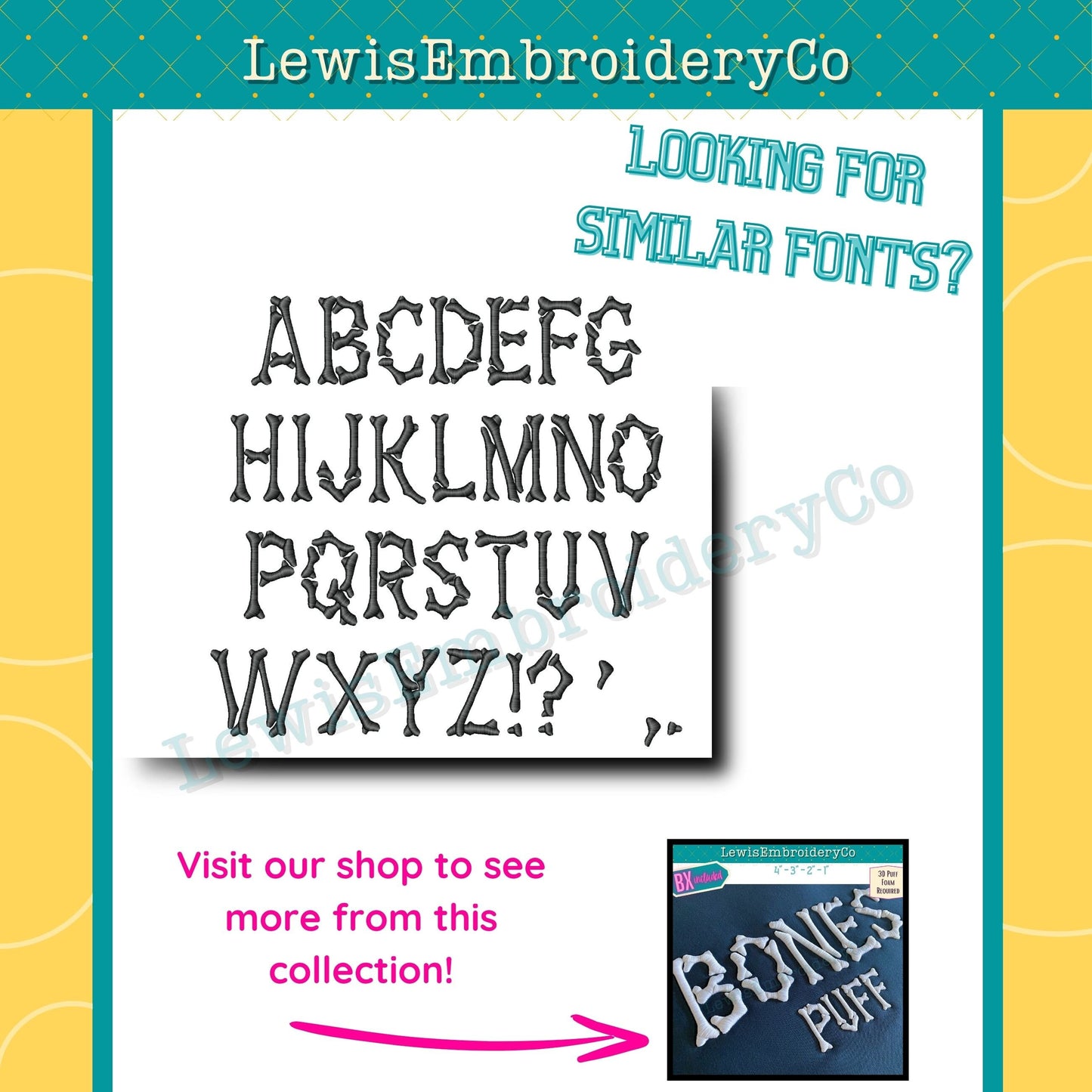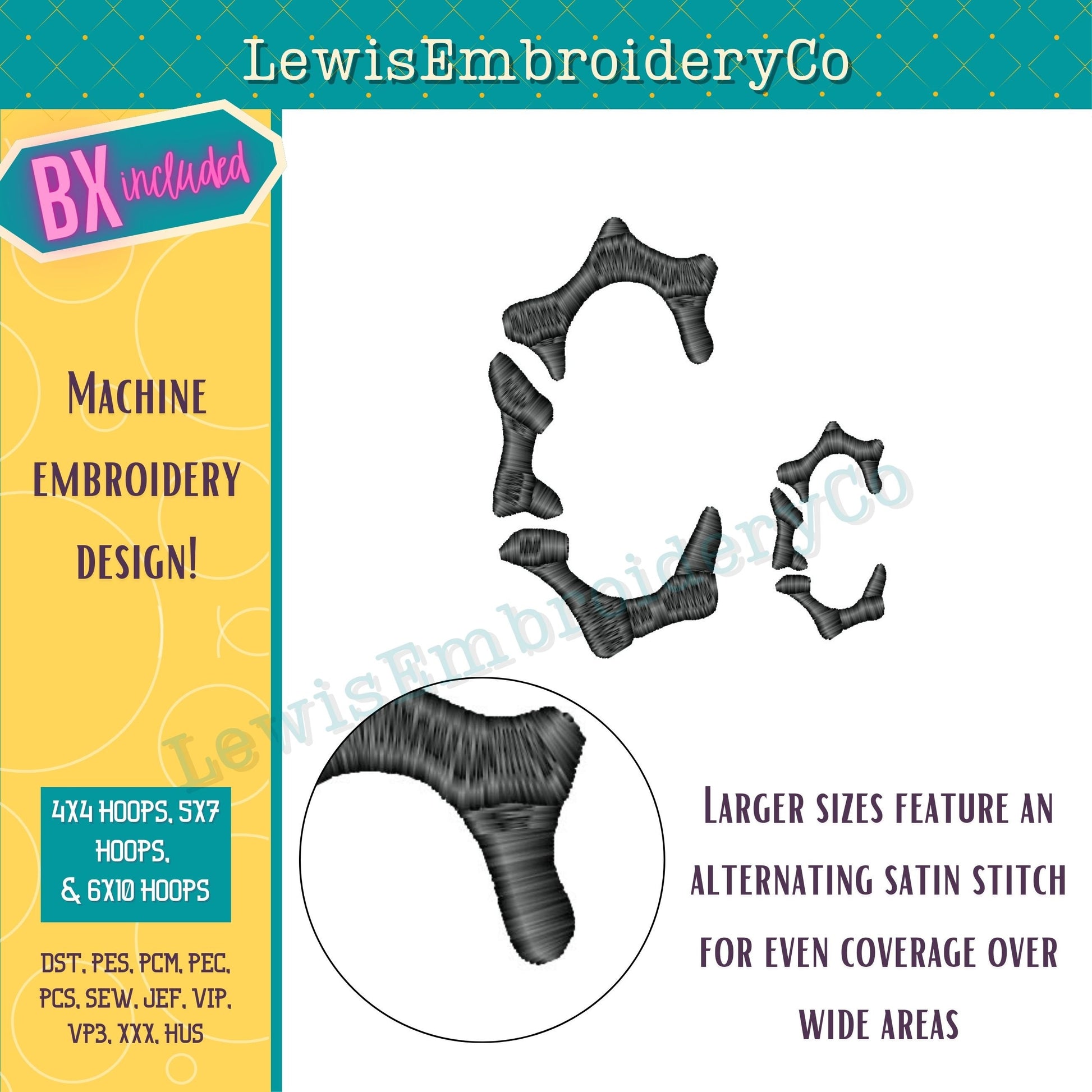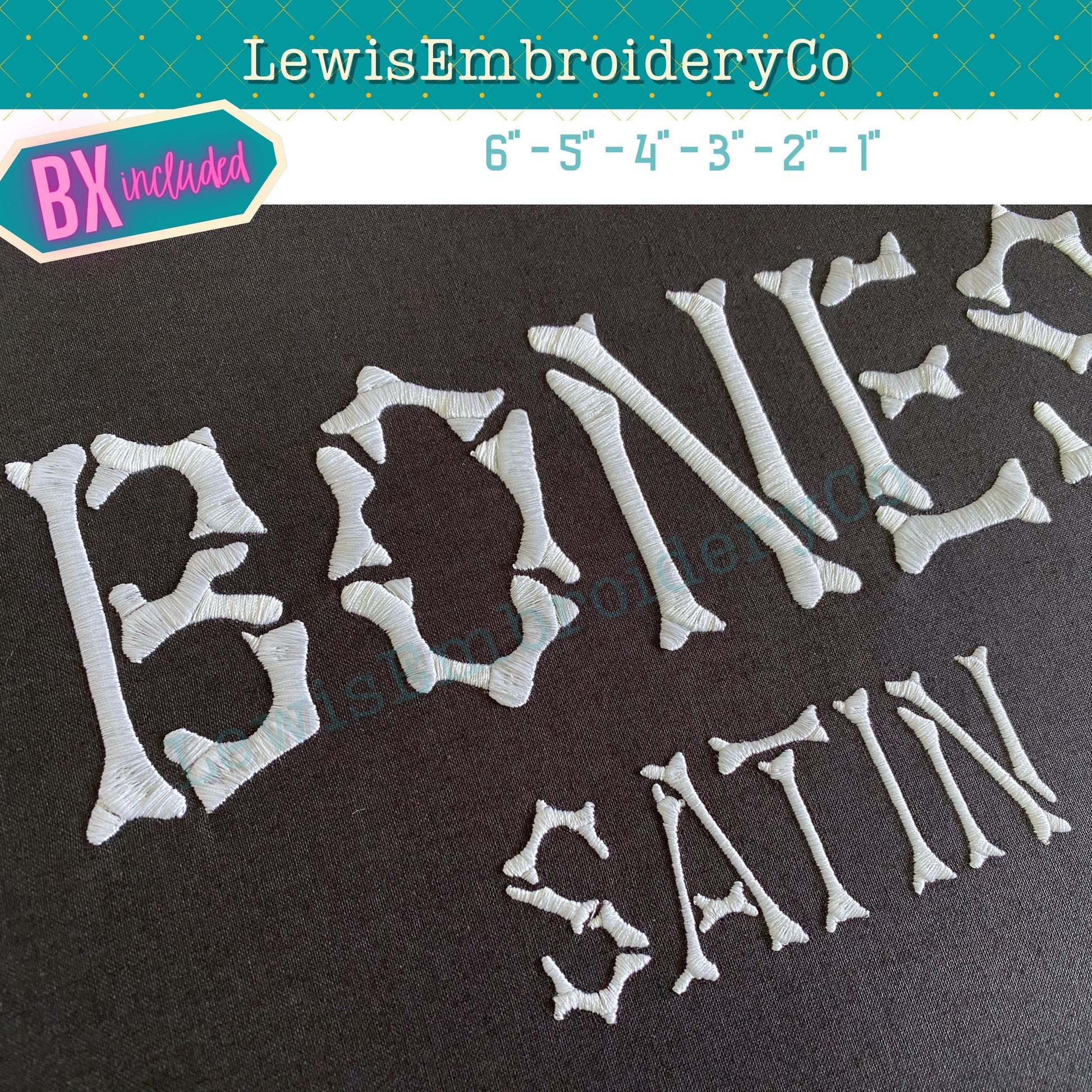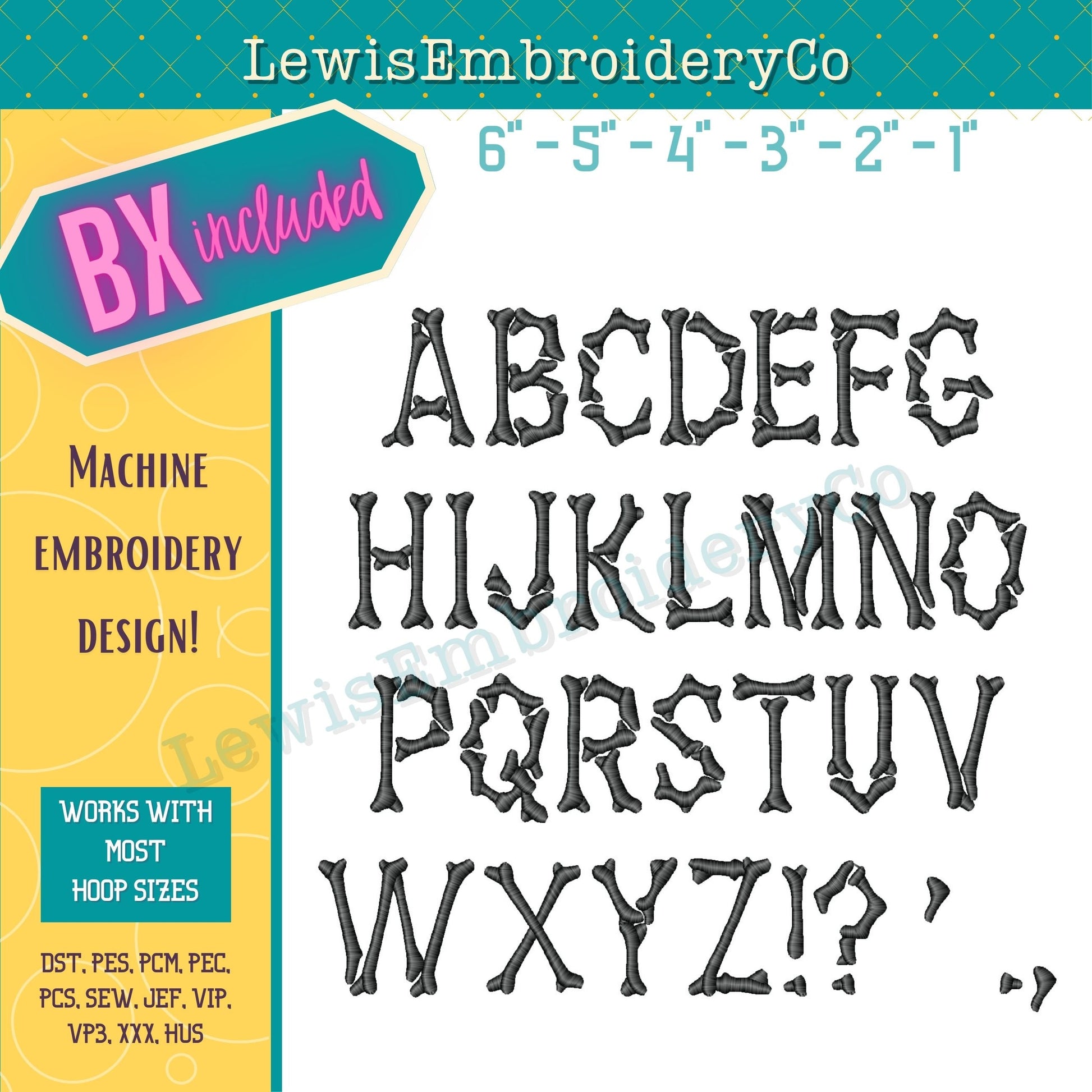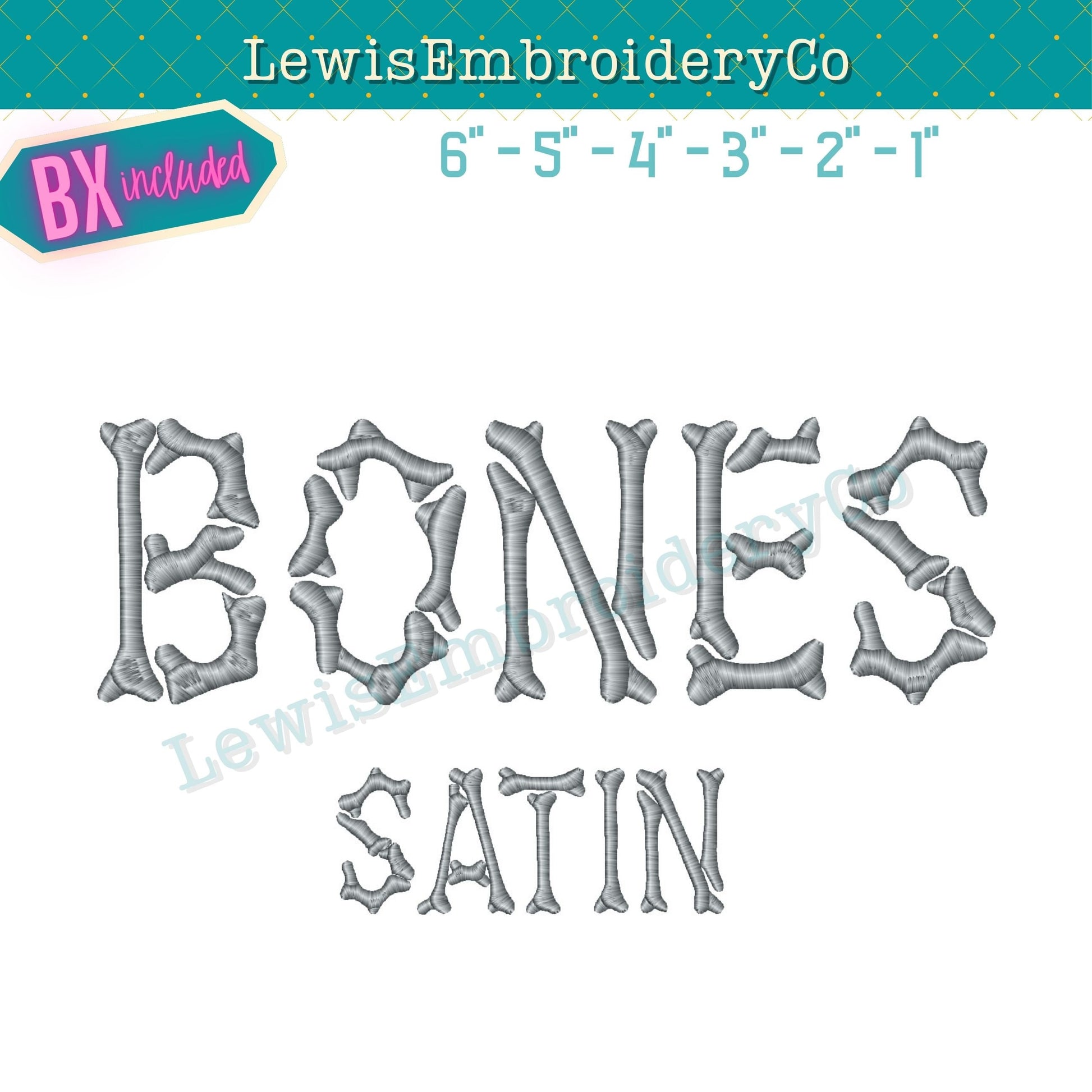
Bones, Machine Embroidery Font - With BX - (Digital Download)
Halloween Embroidery Font - Bones Embroidery Design - Skeleton Embroidery Design - Satin Embroidery Font - BX Font - Skeleton Font